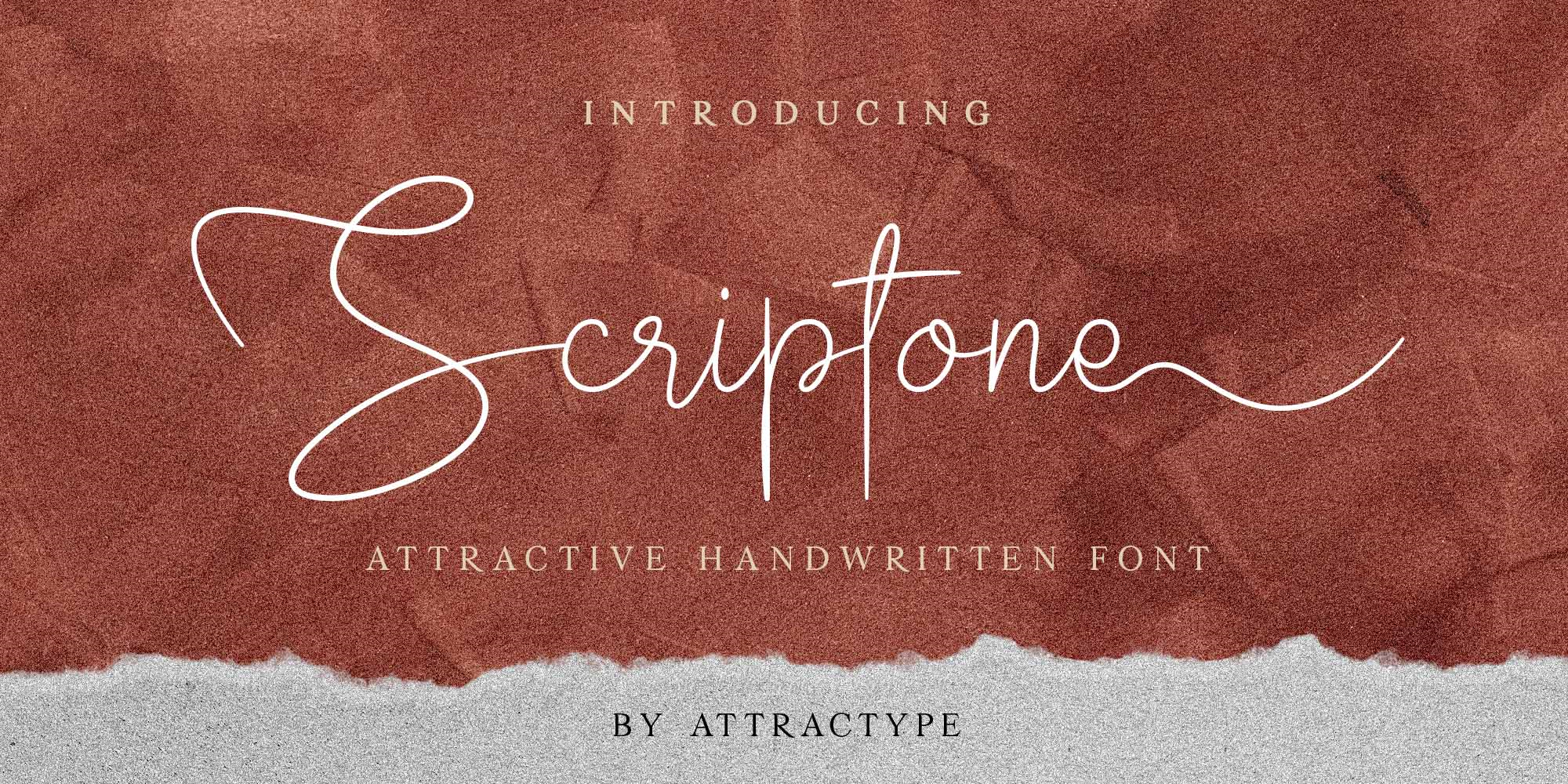
Scriptone Font Free Download is a modern and elegant script typeface featuring smooth, flowing lines and a refined handwritten style. It is perfect for branding projects, wedding invitations, social media graphics, product packaging, and promotional materials that require a stylish, personal, and sophisticated touch.
The font’s graceful curves and well-balanced letterforms ensure excellent readability while maintaining a distinct artistic flair. Scriptone’s versatility allows it to adapt seamlessly to both formal and casual design needs, providing a fresh, creative feel across a variety of applications.
Scriptone is a valuable addition to any designer’s font collection, offering timeless elegance and modern beauty for a wide range of creative projects.